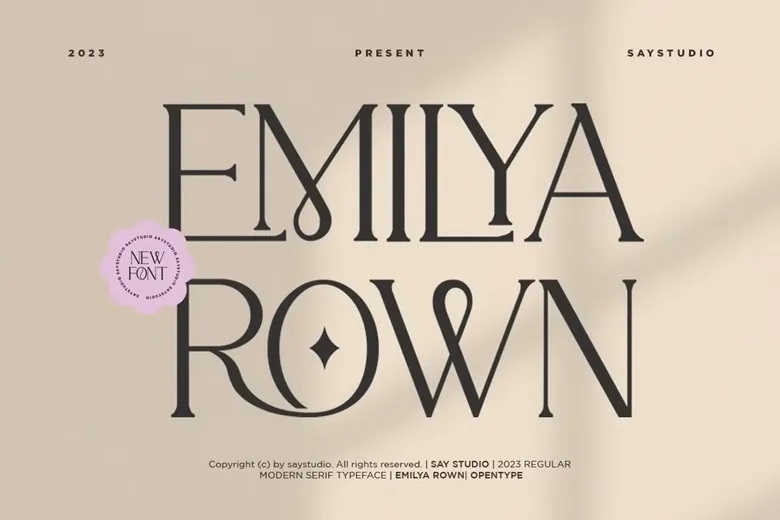
Emilya Rown Font
Emilya Rown is a stylish serif font inspired by Art Deco. It features elegant ligatures and supports multiple languages. This bold and refined typeface adds a distinctive look to any design.
Emilya Rown has a modern and fresh feel. With many stylistic alternates and ligatures, it is highly versatile. You can use it for branding, magazines, logos, headlines, posters, packaging, cards, or wedding invitations.
Emilya Rown Serif Font